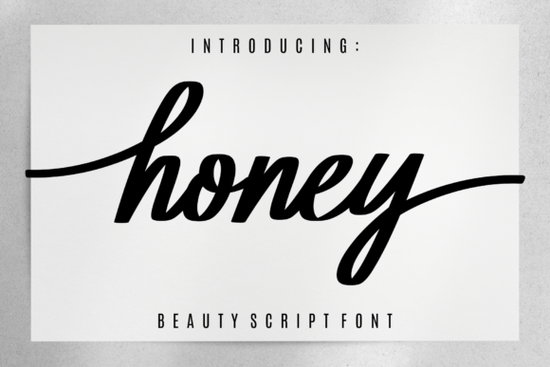
If you’re looking for a script font that feels warm, handmade, and full of charm, Honey Font might be exactly what you need. This beauty script strikes a balance between professional calligraphy and playful, bouncy letterforms. Its long, sweeping tails and thick-to-thin stroke contrast create movement and joy perfect for design projects where you want typography to feel alive rather than stiff.
What makes Honey Font different from other script fonts?
A lot of script fonts look elegant but flat. Honey Font stands out because it has genuine personality. The letters aren’t perfectly uniform they bounce and flow, giving your text a hand-crafted feel without looking sloppy. The typeface includes full swashes and PUA encoding, so you have access to every glyph and alternate character. That means you can create custom ligatures and flourishes without any extra software.
For designers working on beauty branding, lifestyle blogs, or artisan food packaging, this font offers the perfect mix of friendly and sophisticated. It works especially well when you want to evoke authenticity and a touch of creative fun. If you’ve tried other script fonts that feel too formal, a more casual handwriting style might be what you’re after but for something with bounce and energy, Honey does the job.
How can I use Honey Font for branding and packaging?
Because Honey Font has such a lively, approachable feel, it shines as a hero font in logos. Imagine a beauty product name written in Honey, combined with a gold foil texture or a soft watercolor background the contrast of smooth curves and textured finishes looks premium. For artisan food labels like honey jars (fitting, right?), spice blends, or homemade sweets, this typeface adds a handcrafted touch that customers trust.
In editorial design, pair Honey Font with a tall, condensed serif to create a fashion-forward layout. The contrast between the relaxed script and a sharp, modern serif makes your headers pop without competing. If you need something more delicate for wedding invites or stationery, you might also like our wedding script collection but Honey brings a casual sweetness that works for less formal occasions too.
What about apparel and print-on-demand?
For print-on-demand sellers, Honey Font is a strong choice for T-shirts, hoodies, and tote bags. Inspirational quotes, sweet brand names, or even simple words like “love” or “joy” look energetic and legible when set in this typeface. The bouncy baseline keeps text from feeling too rigid, which matters when you’re trying to catch a shopper’s eye quickly.
If you’re designing for a more romantic or refined audience, consider pairing Honey with a font from the Magnolia script family the softer, floral shapes create a nice contrast. For a bolder, more casual look, Restweek Font offers a relaxed vibe that works alongside Honey for multi-font layouts.
Can I use Honey Font for logos and headlines?
Absolutely. Honey Font is built to be a hero font it grabs attention without shouting. Its long, sweeping tails make headlines feel dynamic, especially when used at large sizes. Because the font is PUA encoded, you can access all the swashes and alternate characters directly in design software like Canva, Photoshop, or Illustrator. That means you can customize the look for each project, swapping standard letters for decorative versions.
For example, if you’re designing a logo for a bakery called “Sweet Tooth,” you could replace the “S” with a swash variant that loops under the rest of the word. That small detail makes the logo feel bespoke. If you want a font with even more ornate decoration, check out Paulina Font it’s another script with beautiful flourishes, though it leans more formal than Honey.
What projects work best with Honey Font?
- Beauty & skincare branding – lotion labels, perfume packaging, lipstick names
- Lifestyle blogs & social media – quote graphics, Pinterest pins, Instagram story titles
- Artisan food packaging – honey jars, jam labels, spice packets, tea boxes
- Apparel design – T-shirts with motivational phrases, tote bags with simple slogans
- Stationery & invitations – save-the-date cards, thank-you notes, gift tags (especially for casual weddings or baby showers)
Practical checklist before you buy Honey Font
- Check that your design software supports PUA encoding (most do, including Canva, Cricut Design Space, and Adobe apps).
- Test the font at different sizes Honey works best at display sizes (18pt and up), so don’t use it for long body text.
- Decide whether you’ll use swashes. Plan your headline or logo to include one or two decorative letters to keep the design balanced.
- Pair it with a clean sans serif or a condensed serif for contrast. Avoid pairing with another bouncy script they’ll compete.